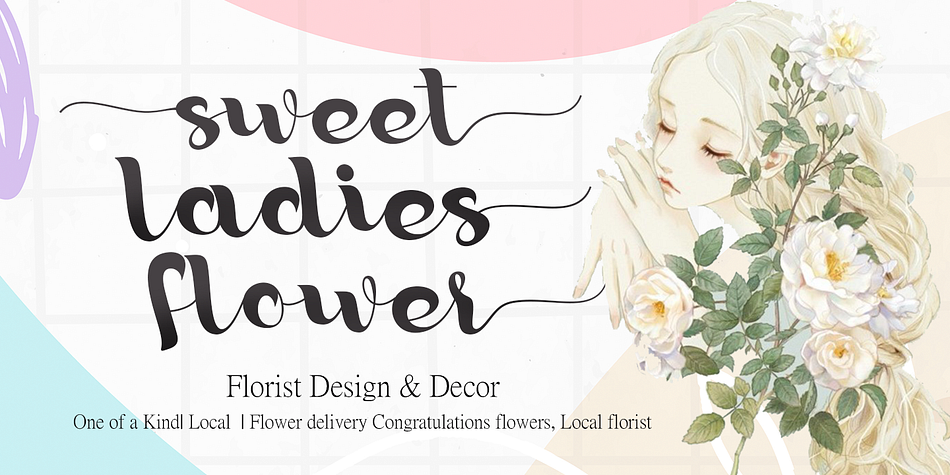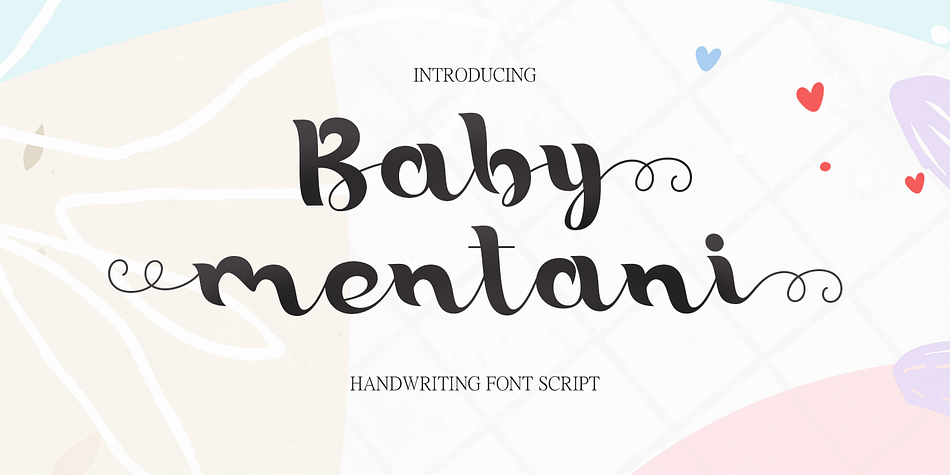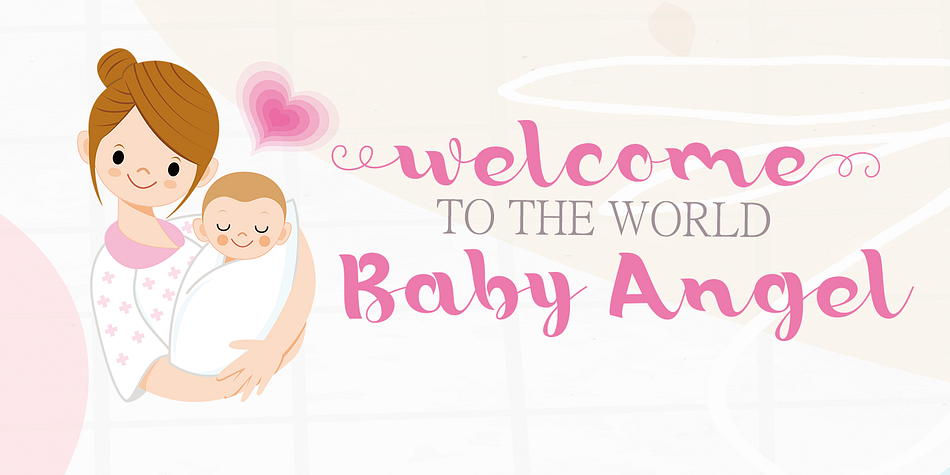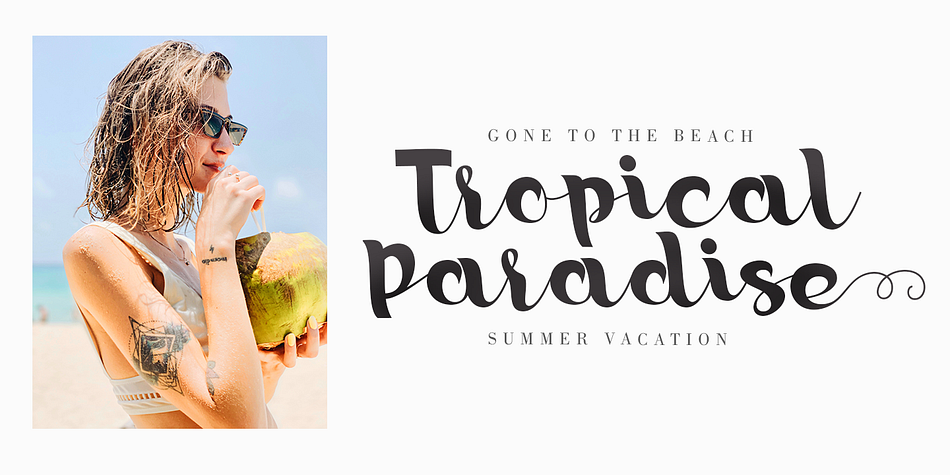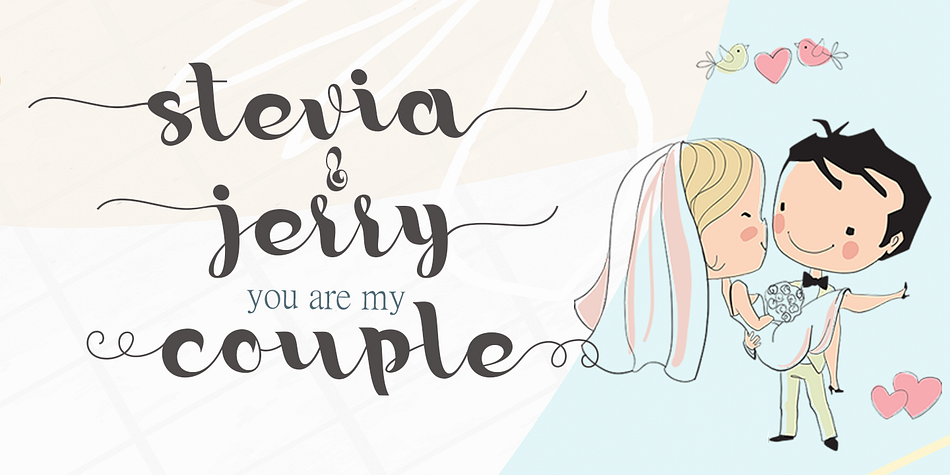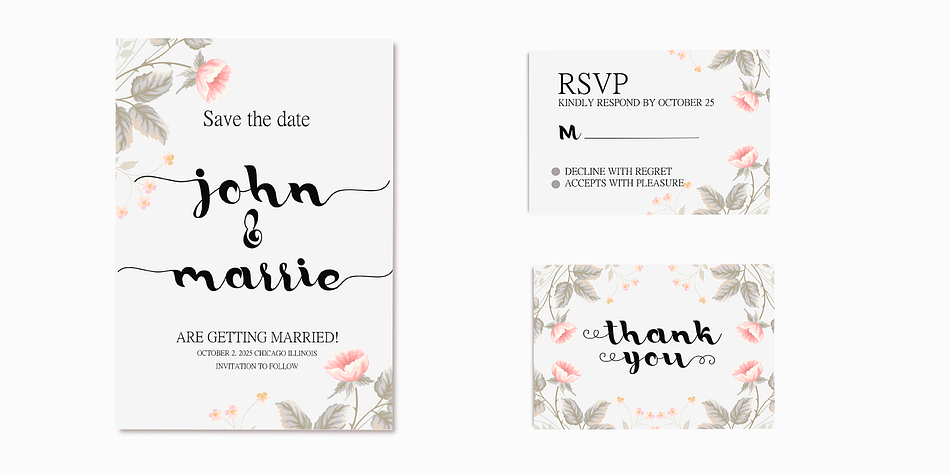
baby mentani
baby mentani is a script font family published by Gatype.
baby mentani is a modern and very classic calligraphy font, we designed this font as much as possible so that it can be used in all design needs, we hope this font can be used widely and throughout the masses. This font is used for various purposes. such as logos, product packaging, wedding invitations, branding, headlines, signage, labels, signatures, book covers, posters, quotes and others.